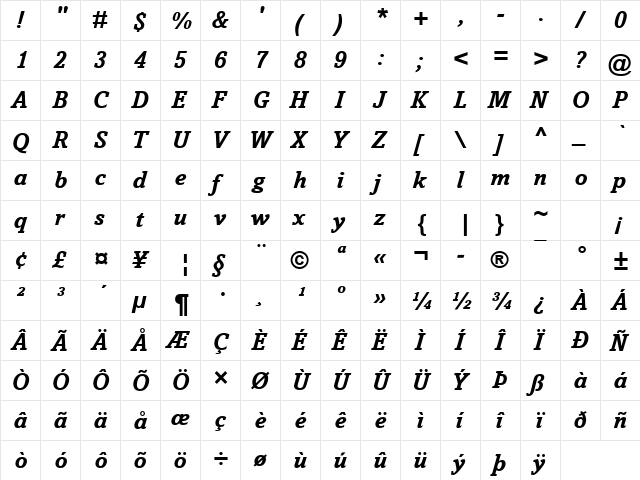
Amasis MT Bold Italic
Design Context for Amasis MT Typeface
Amasis MT is a composed and adaptable typeface that performs quietly and consistently across a wide range of design contexts. The slanted form adds forward momentum and visual energy. Its bold stroke weight gives it real presence on the page.
Pro Tip: Try Amasis MT for annotation and caption copy alongside an upright companion — the contrast in angle creates a dynamic but ordered typographic system.